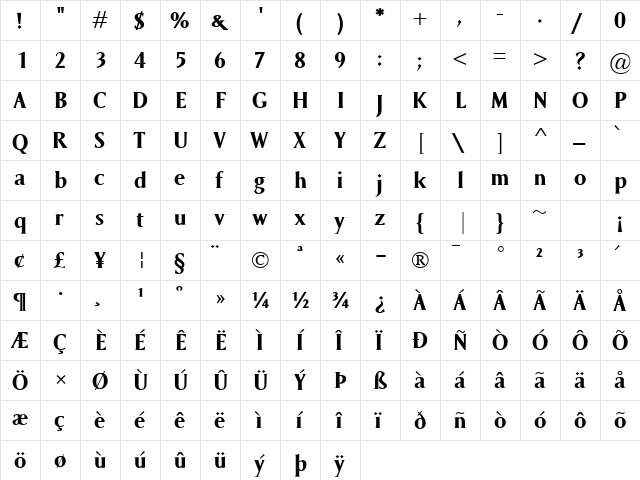
Saga Bold
Design Context for Saga Typeface
Saga offers clean, dependable letterforms without strong stylistic allegiance, making it a practical choice for designers who need flexibility. The heavy weight commands attention and anchors typographic hierarchies.